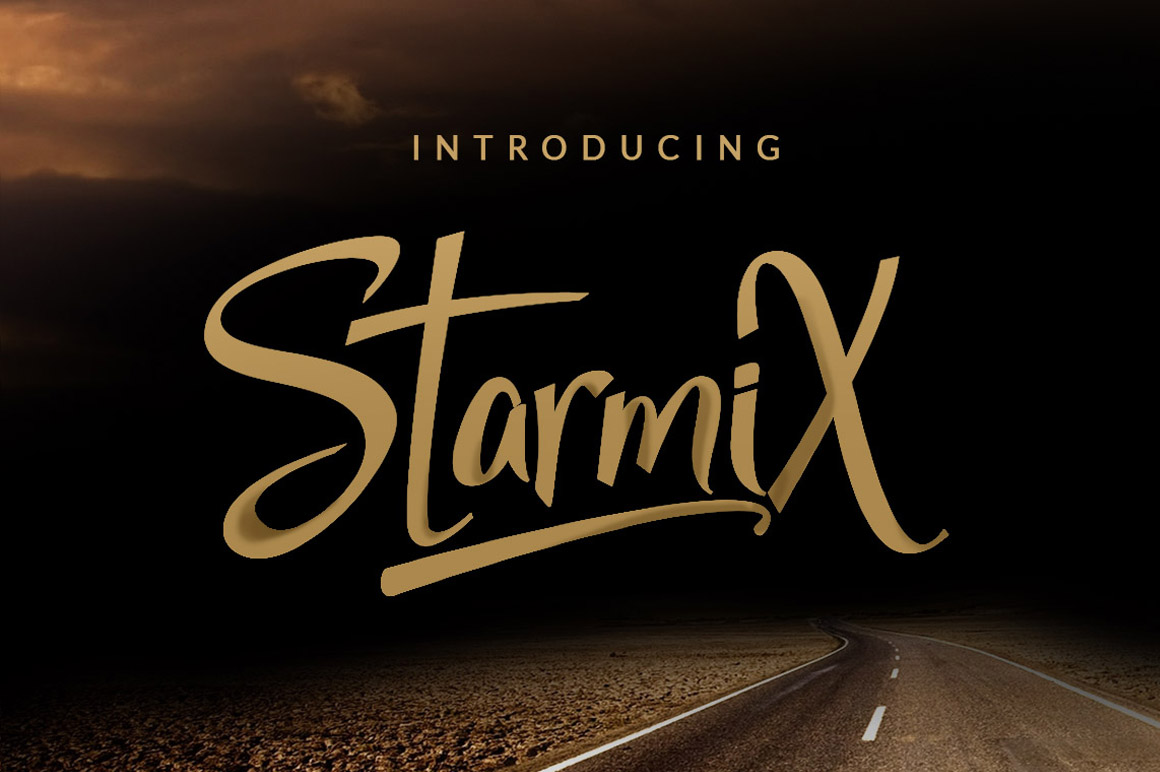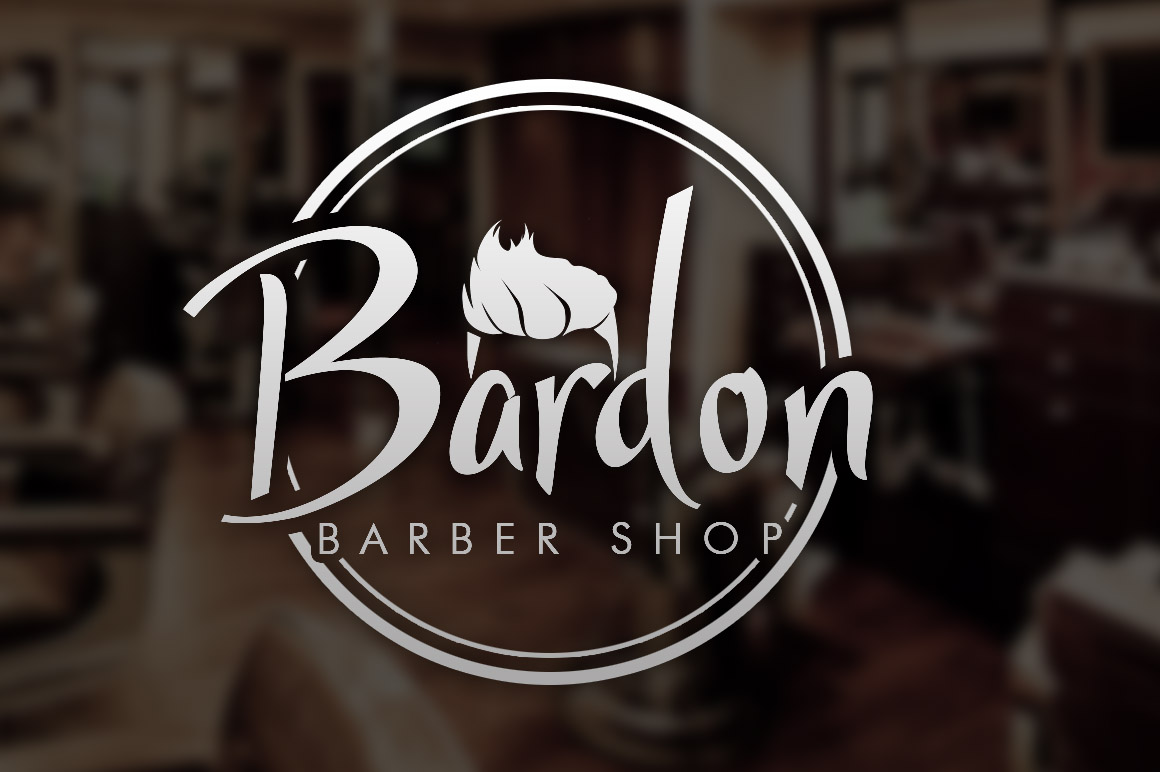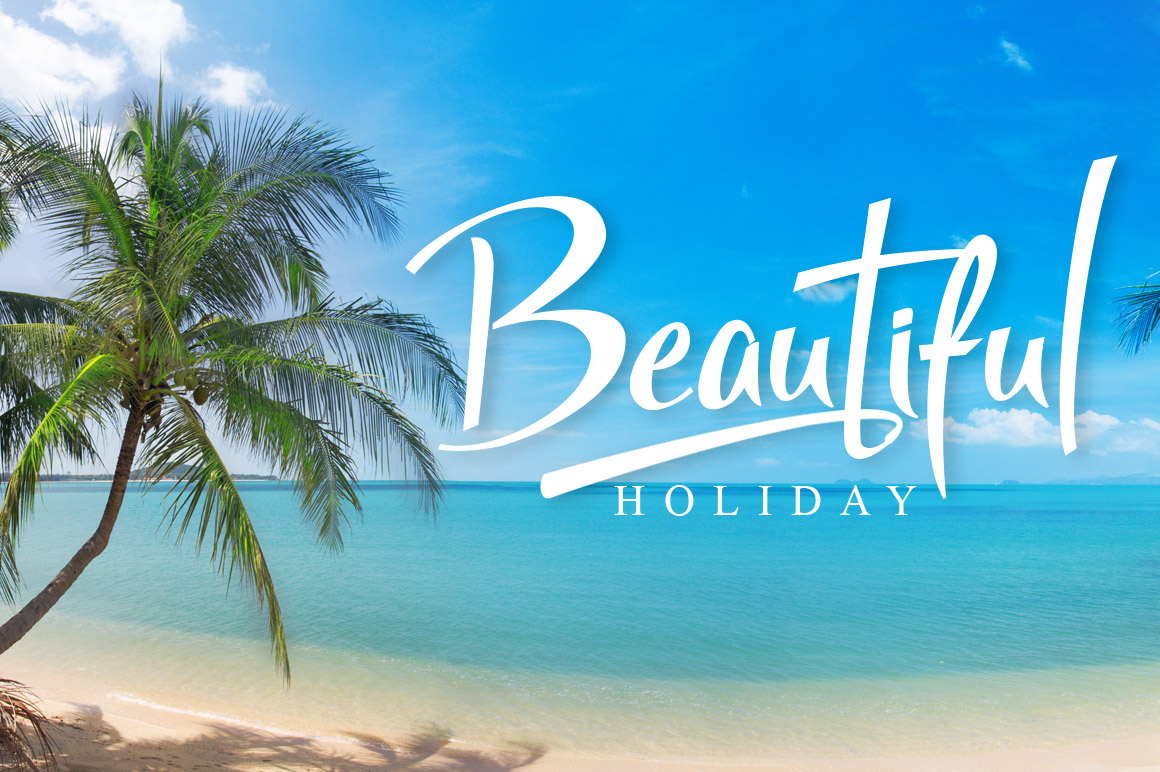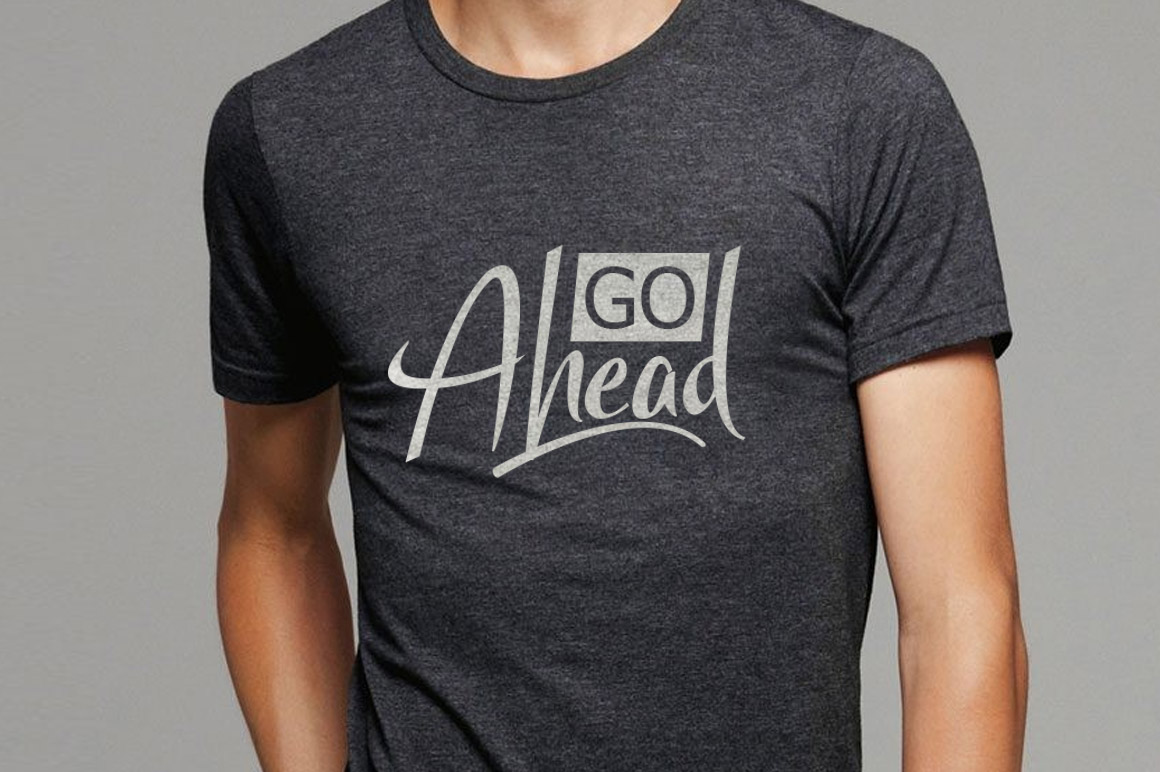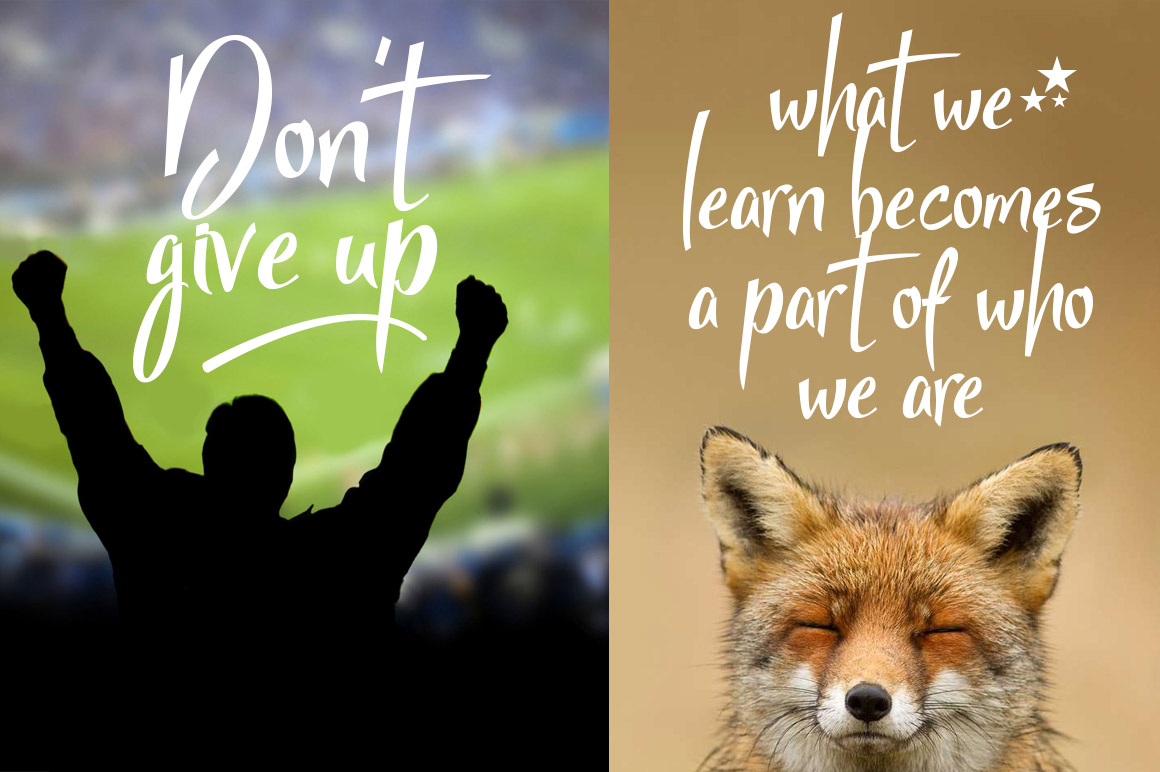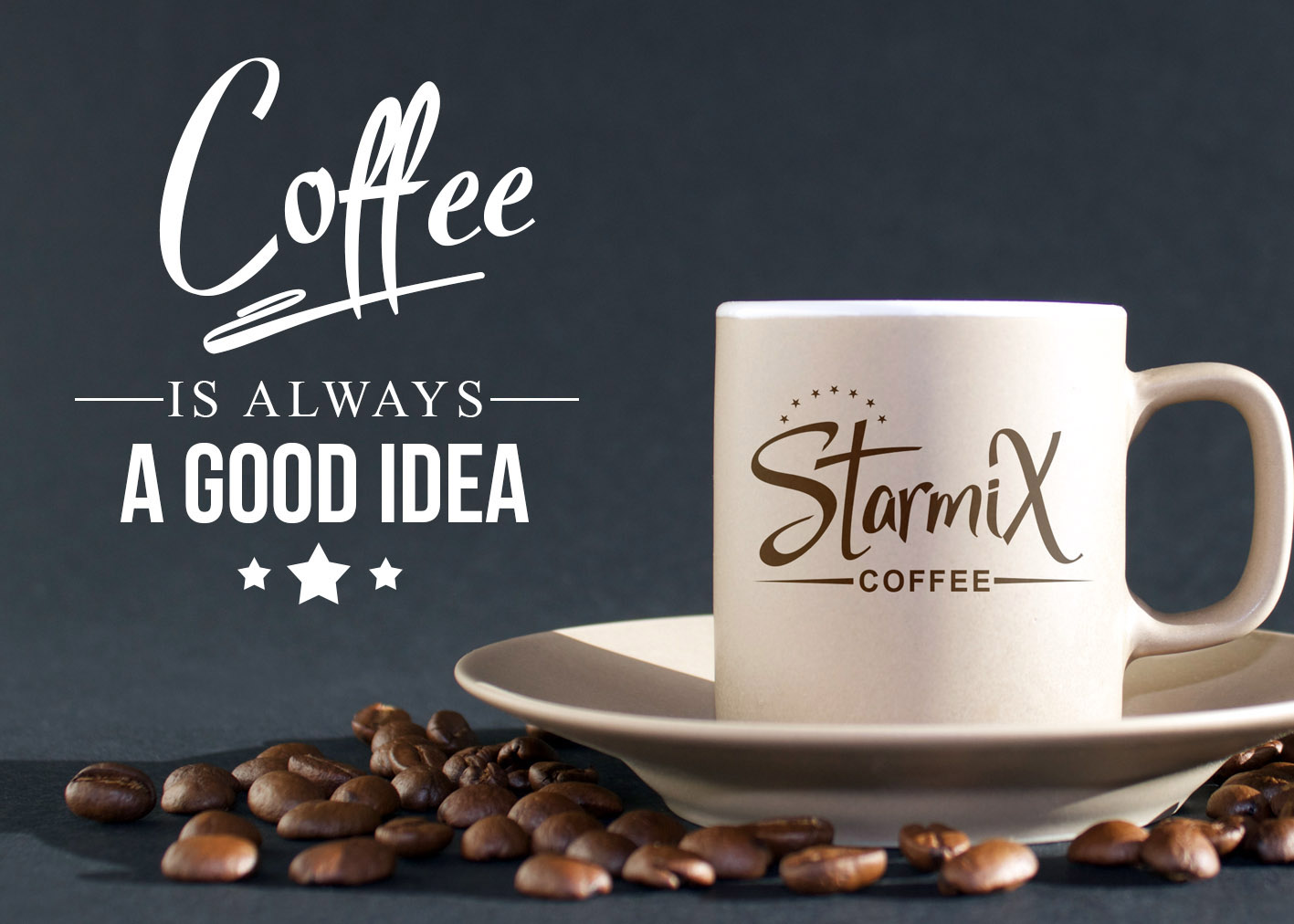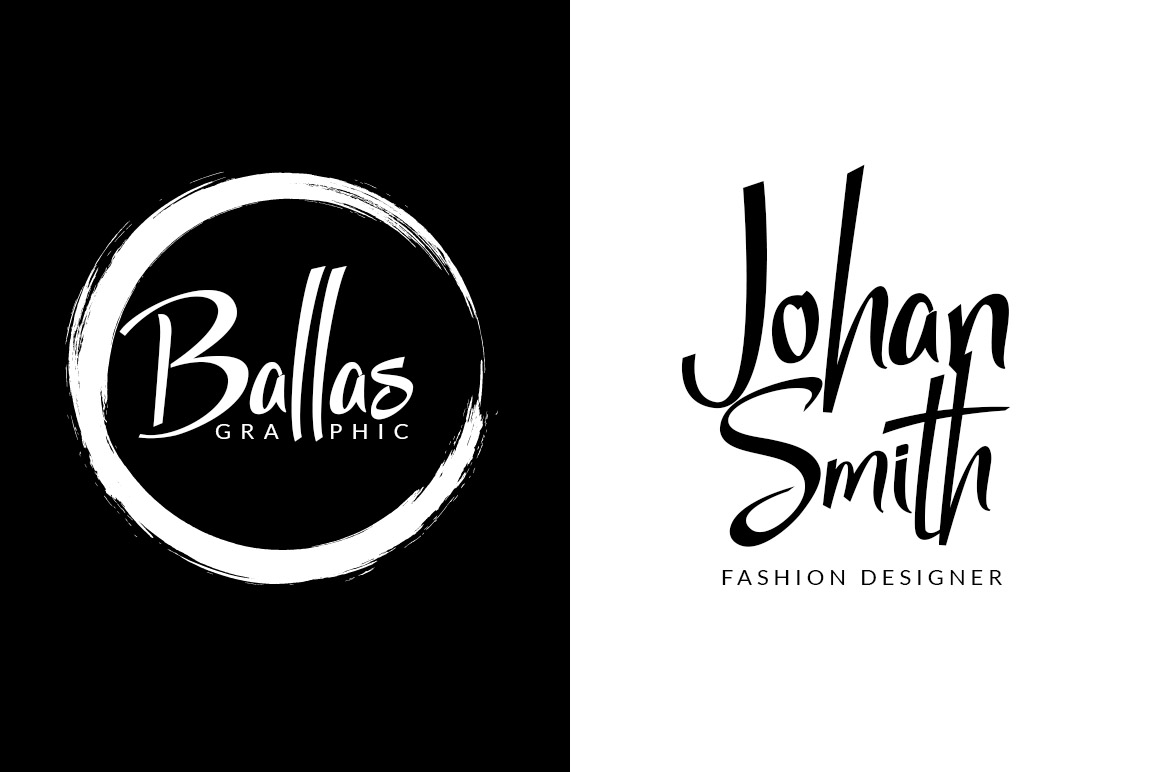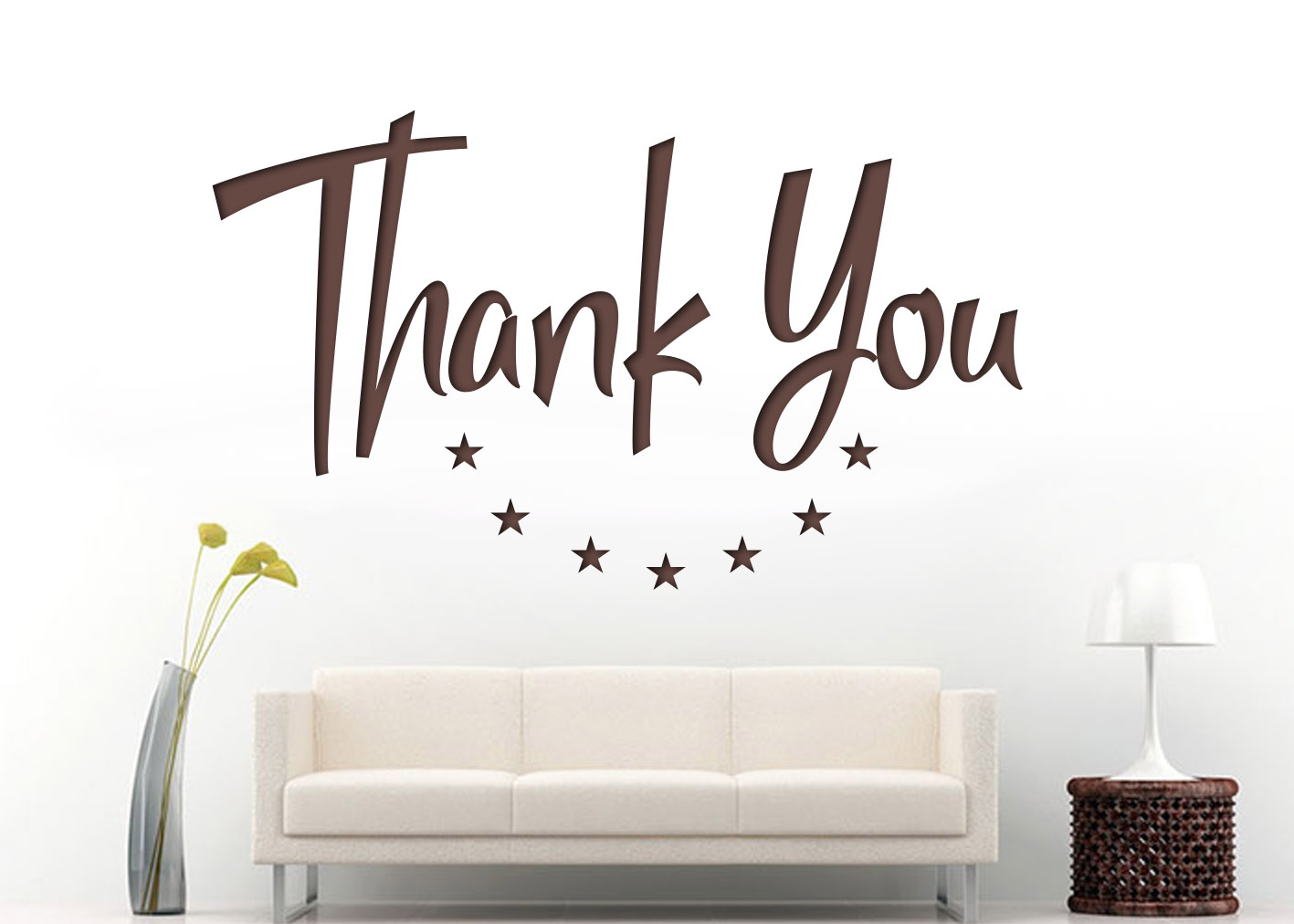
HomeScript FontsStarmiX Font Script Fonts StarmiX Font FacebookXPinterestWhatsApp StarmiX Font Poster 2 StarmiX Font Poster 3 StarmiX Font Poster 4 StarmiX Font Poster 5 StarmiX Font Poster 6 StarmiX Font Poster 7 StarmiX Font Poster 8 About StarmiX Font StarmiX is a fresh and unique font. This handmade font features multilingual characters and includes swashes. DOWNLOAD ON CREATIVE FABRICAThis font is sold and delivered by Creative Fabrica. Font Canyon may earn a commission if you buy through this link. People also explored Rosalina Font Golfmind Font Wedding Font DREXS February Bounce Emaciated Font Paradise Garden Font Barbie Font Giseda Font 293 0 TagsStarmiX Font Previous articleRandom Luck FontNext articleYouth and Beauty Font LEAVE A REPLY Cancel reply Comment: Please enter your comment! Name:* Please enter your name here Email:* You have entered an incorrect email address! Please enter your email address here Website: Save my name, email, and website in this browser for the next time I comment. Personal Use Free Party Pooper Personal Use Free Read more about this font DoooLA Personal Use Free Read more about this font Nesto Copper 42 Font Personal Use Free Read more about this font Jilliant Personal Use Free Read more about this font BLOG Modern Sans-Serif Fonts That Brands Love in 2025 In 2025, modern sans-serif fonts remain a top choice for brands looking to project clarity, professionalism, and... Top 10 Handwritten Fonts That Elevate Your Designs Where to Buy American Fonts Online in 2024 Free Fonts Risk: Why Free Fonts Can Be Dangerous for Designers